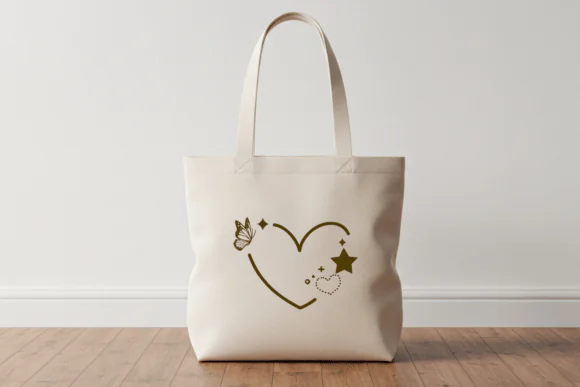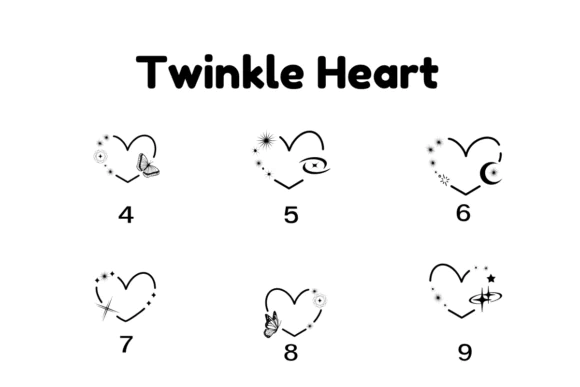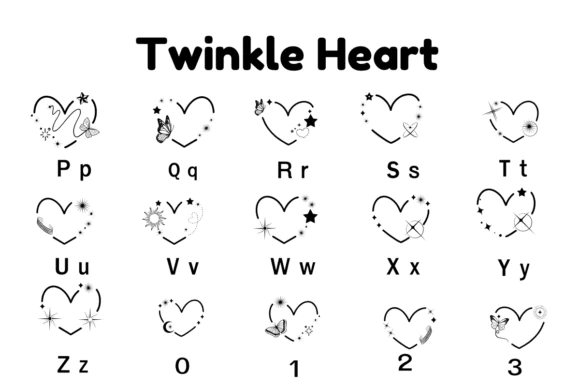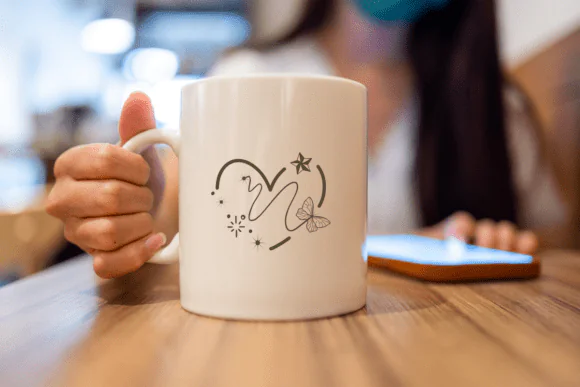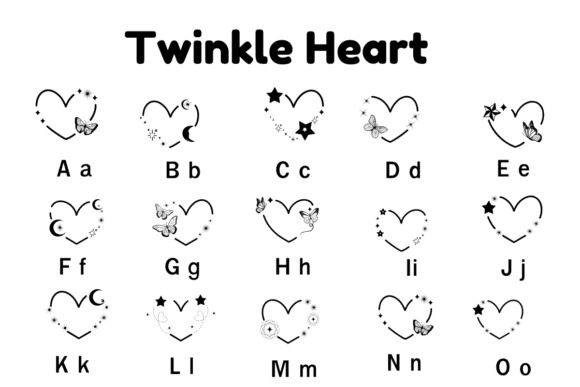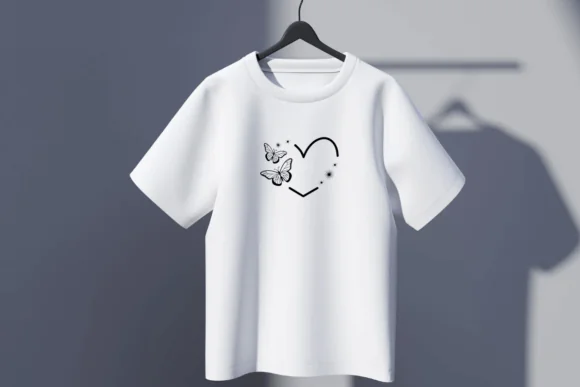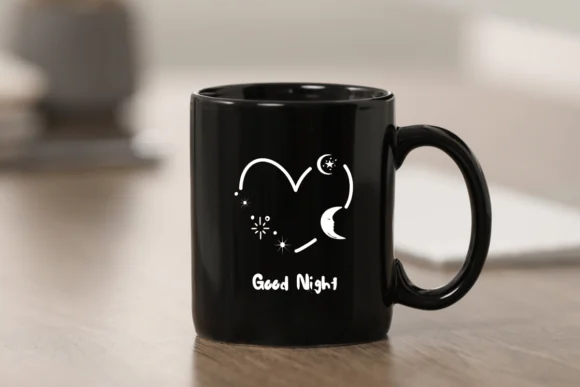
Add a romantic, celestial, and magical touch to your creative projects with Twinkle Heart Font, an enchanting dingbats font featuring beautiful heart-inspired icons instead of traditional letters. This unique decorative font includes 20 charming heart silhouettes enhanced with dreamy details such as twinkling stars, crescent moons, butterflies, sparkling orbits, fine-line accents, and whimsical celestial elements.
Twinkle Heart is perfect for designers, crafters, wedding creators, boutique brands, and small business owners who want to add soft romantic symbols to their digital and print designs. Each heart icon has a clean monoline style combined with delicate dot-work and fine illustration details, giving your designs a handcrafted, elegant, and magical appearance.
Use this font to create celestial wedding stationery, romantic invitations, mystical branding, boutique logos, social media graphics, personalized gift labels, stickers, packaging, printable wall art, greeting cards, Valentine’s Day designs, and dreamy craft projects. Whether you are creating a romantic brand identity, a magical wedding design, or a cute celestial-themed product, Twinkle Heart adds sparkle, charm, and emotional beauty to your artwork.